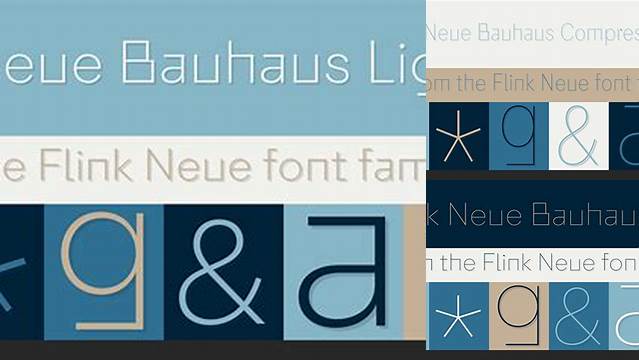
Hey everyone! Are you looking to add a touch of modernism and timeless design to your projects? Well, you're in luck because we're diving into the world of the Flink Neue Bauhaus font, and the best part? You can snag it for free! This article will explore everything you need to know about this iconic typeface, from its history and design to where you can download it without spending a dime. So, let's get started and unlock the beauty of Flink Neue Bauhaus for your creative endeavors!
H2: The History and Inspiration Behind Flink Neue Bauhaus
Alright, guys, let's rewind a bit and talk about the roots of this awesome font. Flink Neue Bauhaus, as the name suggests, is heavily inspired by the Bauhaus movement. For those of you who might not know, the Bauhaus was a super influential art and design school that emerged in Germany in the early 20th century. They were all about combining art, craft, and technology, and they had a huge impact on architecture, graphic design, and, of course, typography. The movement championed functionality, minimalism, and clean lines. Think of it as the OG of modern design! Flink Neue Bauhaus perfectly encapsulates the spirit of this movement. It's all about simple geometric forms, clarity, and a focus on the essential elements. The font is designed to be legible and versatile, making it perfect for a wide range of uses, from headlines to body text. When you use Flink Neue Bauhaus, you're not just using a font; you're embracing a legacy of design that's both historical and undeniably contemporary. Understanding its history helps you appreciate the font's inherent elegance and the design principles it embodies. You can also use it for many designs, such as logos, posters, website designs, and so much more!
When we're talking about the Bauhaus movement, it's essential to appreciate the context of the time. After World War I, there was a widespread desire for a new approach to art and design, one that was democratic and accessible to everyone. The Bauhaus school was at the forefront of this movement, advocating for designs that were both beautiful and practical. This philosophy is clearly visible in the design of Flink Neue Bauhaus. It's not just a font; it's a statement of values, a commitment to simplicity and functionality. It's also a tribute to the spirit of the early modern era. This font also uses some different styles. It offers many different styles, such as regular, bold, italic, and light. This will make it easier for you to make your designs, depending on what kind of design you're making. In today's fast-paced world, it's refreshing to have a font that embodies such timeless principles. If you’re looking for a font that will make your designs pop, then this is the right font for you!
H3: Key Design Features and Characteristics of Flink Neue Bauhaus
Okay, let's get down to the nitty-gritty and break down what makes Flink Neue Bauhaus tick. The defining characteristics of this font are all about simplicity and geometric precision. You'll notice clean lines, consistent stroke weights, and a lack of unnecessary ornamentation. The letterforms are often based on basic shapes like circles, squares, and triangles, creating a sense of harmony and balance. This approach ensures that the font is not only visually appealing but also highly legible, making it ideal for various design applications. A standout feature of Flink Neue Bauhaus is its versatility. It works incredibly well in both large and small sizes, so it's perfect for headlines, titles, and body text. The font also boasts a range of weights and styles, including regular, bold, italic, and sometimes even condensed variations, providing designers with ample options to customize their work. Another key characteristic is its neutrality. The font doesn't carry any strong stylistic baggage. This neutrality allows it to be paired with other fonts and design elements. It's designed to be a workhorse font, and it won't overpower your design or clash with your chosen color palettes or imagery.
When you examine individual letterforms, you'll observe the attention to detail that went into their creation. The curves are smooth and consistent, the angles are sharp and precise, and the spacing is carefully considered. This precise approach creates a sense of visual cohesion and clarity. The emphasis on functionality is another design feature. Flink Neue Bauhaus is designed to be easy to read and understand. The designers prioritized clarity and readability above all else, making this font a practical choice for any project that requires clear and concise communication. Considering the versatility, neutrality, and attention to detail, it's no wonder Flink Neue Bauhaus is such a popular choice among designers! This font is really user-friendly, especially if you're a beginner. You can easily use it in many design applications! If you're just starting, you can also explore and combine it with other fonts!